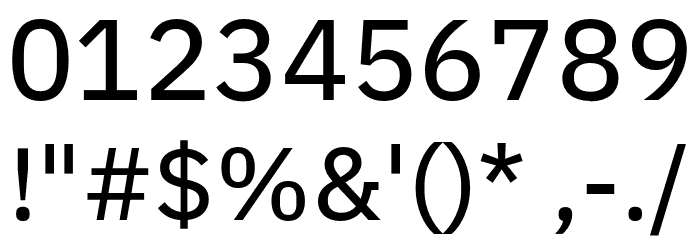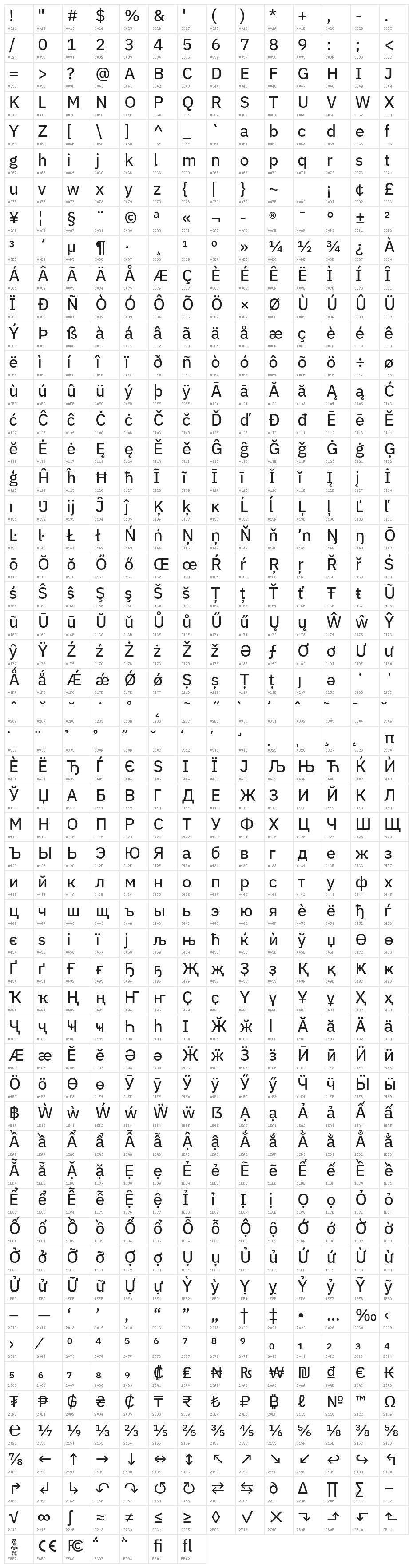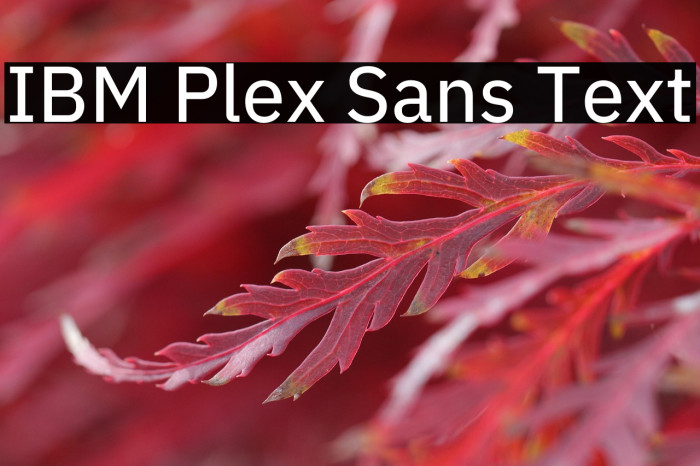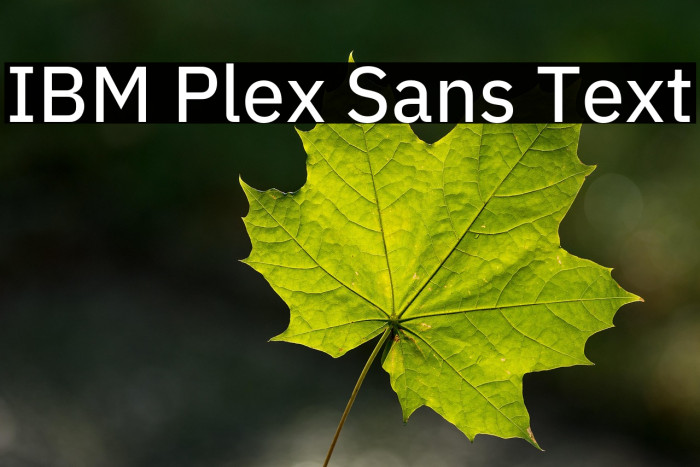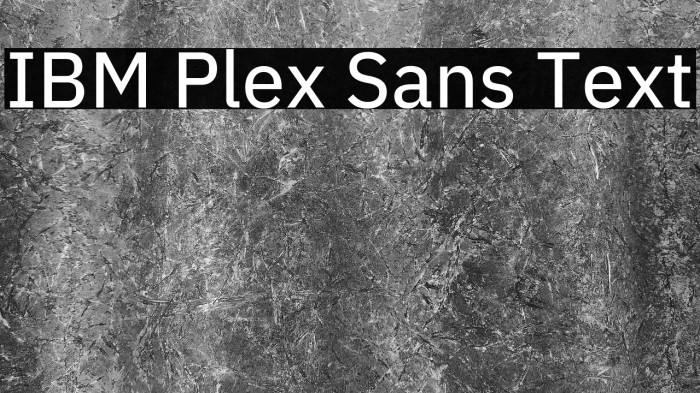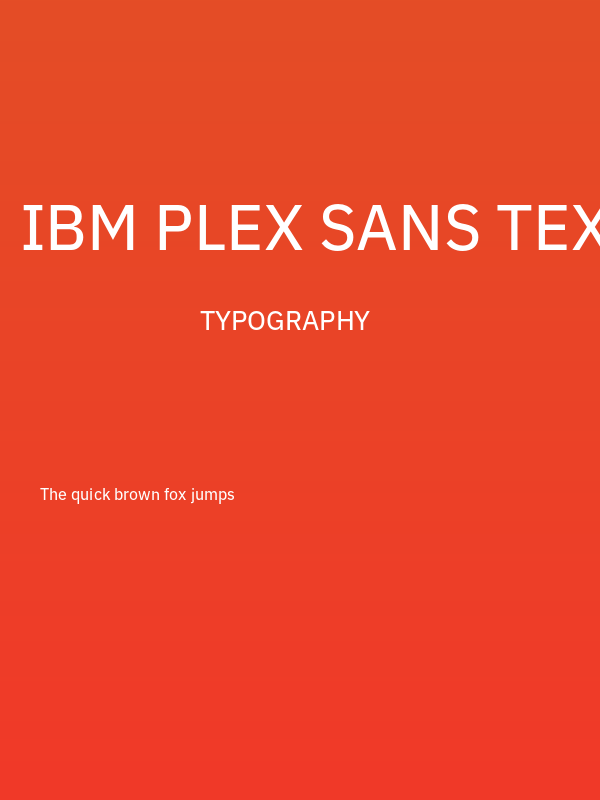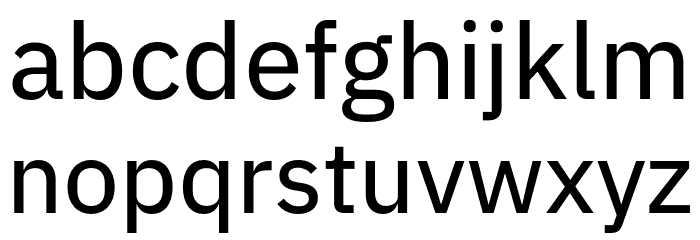
IBM Plex Sans Text Font
IBM Plex Sans Text Description
This font features a clean and modern sans-serif design, characterized by its geometric shapes and open counters. The letters are well-balanced, offering excellent legibility across various sizes. The uppercase letters are bold and assertive, while the lowercase letters maintain a friendly and approachable appearance. The numerals are clear and distinct, making them suitable for both text and numerical data presentation. Special characters are designed with precision, ensuring consistency throughout the typeface. This font is versatile, suitable for both digital and print media.
| Proposed Projects | Ideal for corporate branding, user interfaces, websites, and editorial design. |